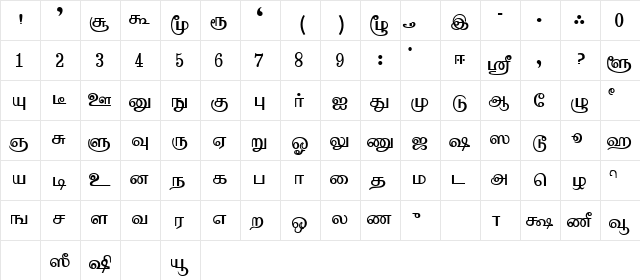
Sarukesi Regular
| Foundry | TamilSoft Corporation |
| Designer | TamilSoft Corporation |
Design Context for Sarukesi Typeface
Sarukesi offers clean, dependable letterforms without strong stylistic allegiance, making it a practical choice for designers who need flexibility.